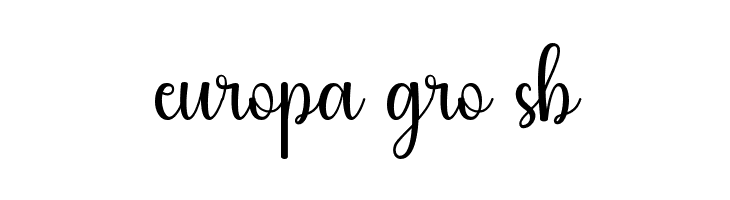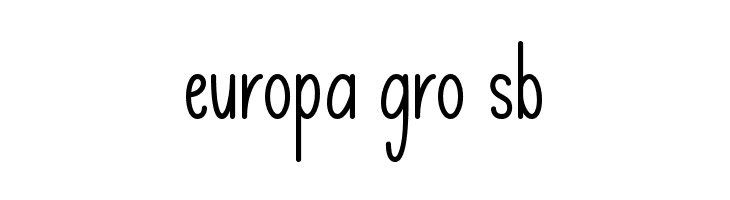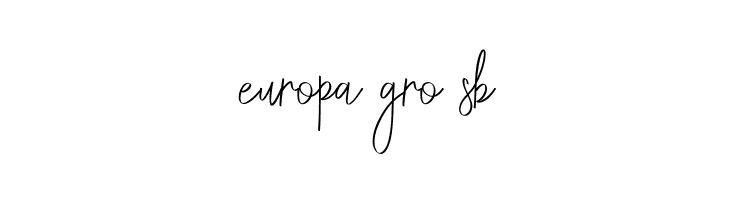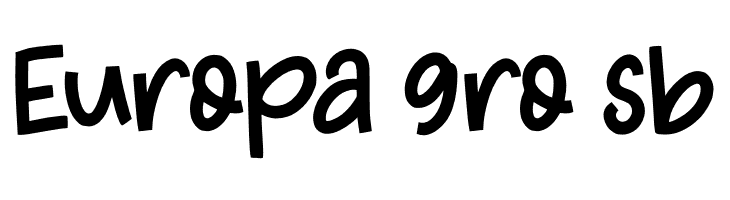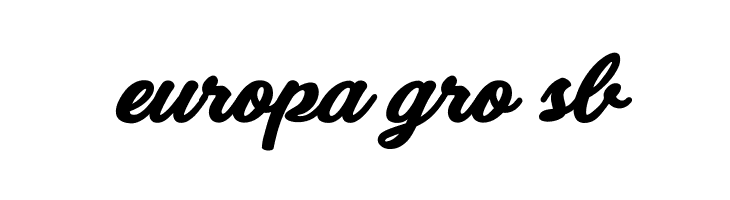
• Christmas Tree
A playful, rounded font with a hand-drawn feel.
• Christabela
A playful, handwritten font with a whimsical and dynamic style.
• Love Christabela
A playful, handwritten font with tall, narrow letters and a casual style.
• Christiana
A distressed serif font with a vintage, hand-drawn appearance.
• ChristinaAllie
A delicate and elegant script font with thin, flowing strokes.
• Christbell
A bold, decorative font with holiday-themed elements in each letter.
• Christmas Farmhouse
A playful, bold, and hand-drawn style font with rounded letterforms.
• Christmas Cat
A bold, playful script font with a festive and dynamic style.
• CHRISTMAS REVUE PERSONAL USE
A bold, flowing script font with elegant, cursive letterforms and strong visual impact.
• Cartoon Blocks Christmas SC
A playful, cartoonish font with snow-capped, blocky letters perfect for festive designs.